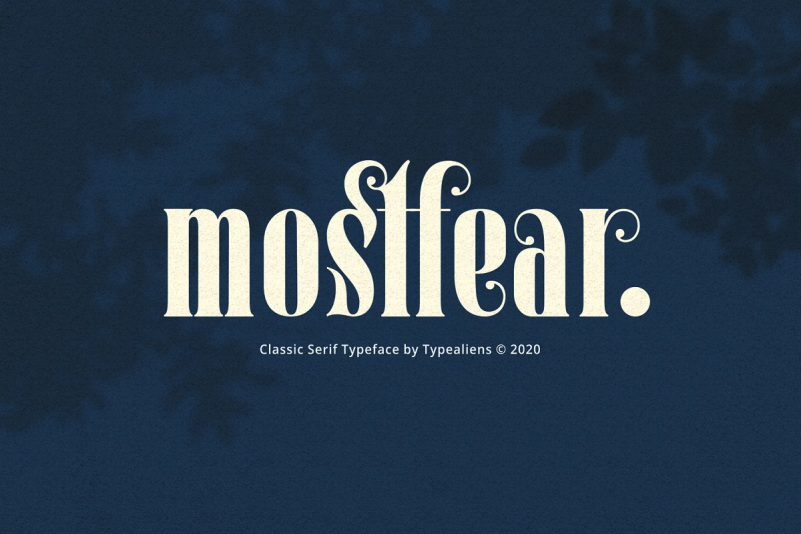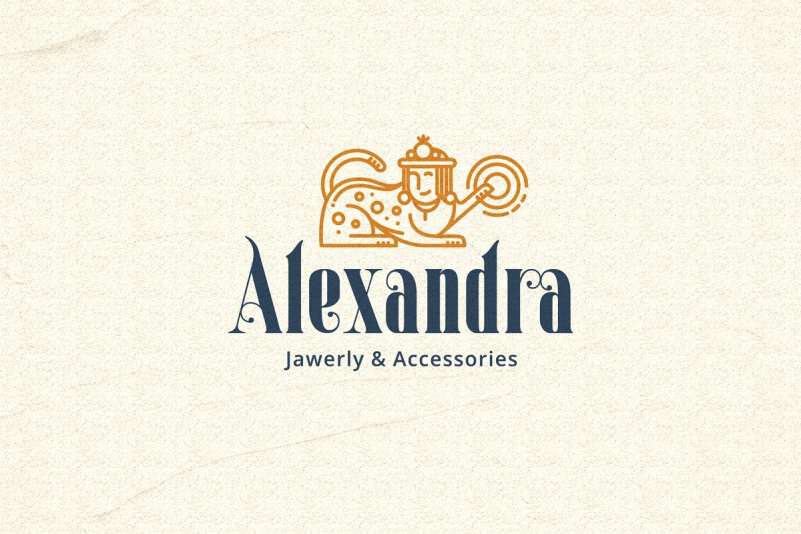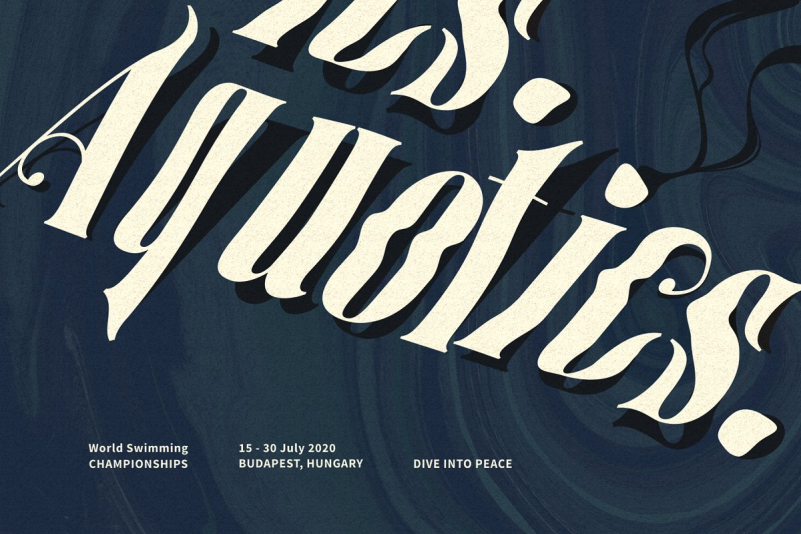
Mostfear Font
MOSTFEAR — is a classic serif font that is able to support the modern era. It is suitable for magazine cover designs as headlines and sub-headlines, besides of course because this is a display font it will also be good for your logo design, or some print designs such as business cards, letterhead, envelopes, folders, and newspaper headlines.